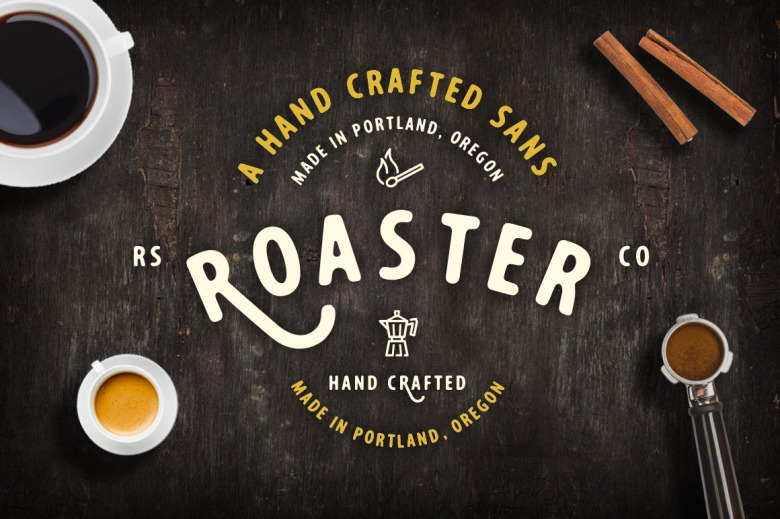
Roaster Font
Like sweet, fresh roasted espresso poured into a warmed ceramic cup in the early morning. Roaster has a rounded, hand crafted flavor with lots of alternatives. A perfect font pair for branding and headings.
Roaster is a 2 font mono weight family with plenty of alternative long stemmed characters. These 2 fonts make it effortless to create hand made lettering.
Roaster Font